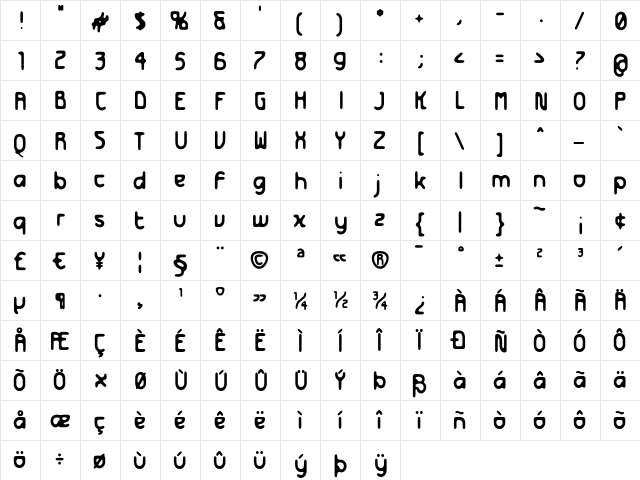
Futurex Distro Regular
| Designer | ;-Peter Ramsey at Swordfish Design |
Design Context for Futurex Distro Typeface
Futurex Distro channels digital-age aesthetics through its sharp, structured letterforms — ideal for brands that want to signal innovation.